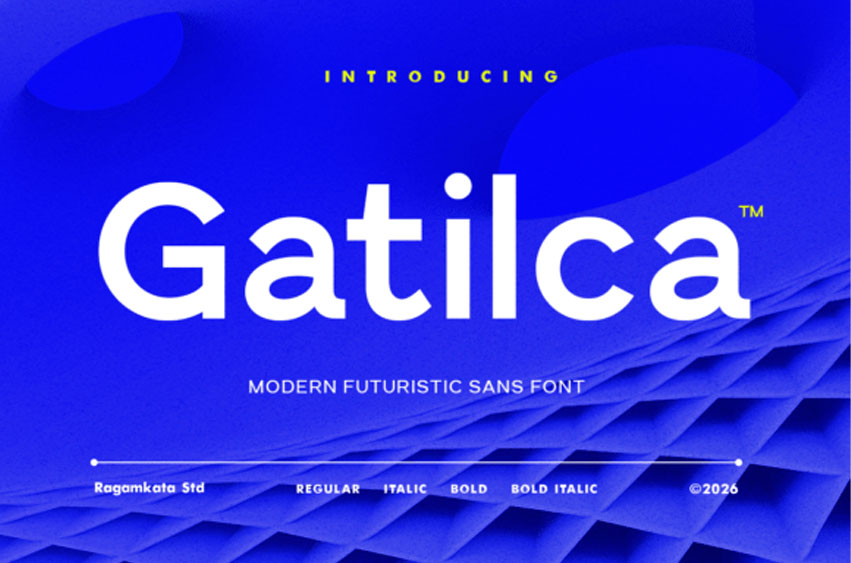
Gatilca Font is a modern futuristic sans font designed to deliver a clean, innovative, and forward-thinking visual identity.
Perfect for technology branding, startup identities, digital interfaces, gaming graphics, and modern advertising design, Gatilca provides a bold typographic presence that works beautifully across both digital and print media. Its clean shapes and modern rhythm make it ideal for logos, headlines, posters, UI design, and futuristic visual concepts.
Whether used for tech companies, innovation brands, modern websites, or digital product campaigns, Gatilca helps designers create sleek and impactful designs.